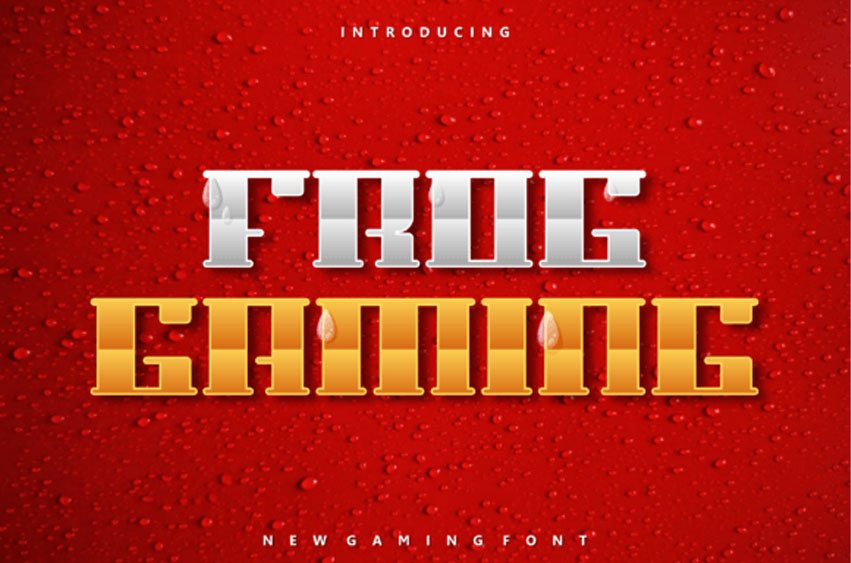
Frog Gaming Font is a cool and incredibly interesting display font.
Add it confidently to your projects and you will be astounded by the outcome generated!